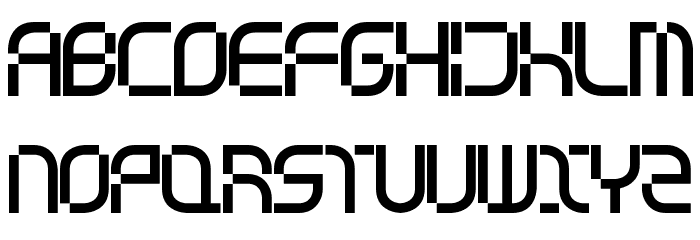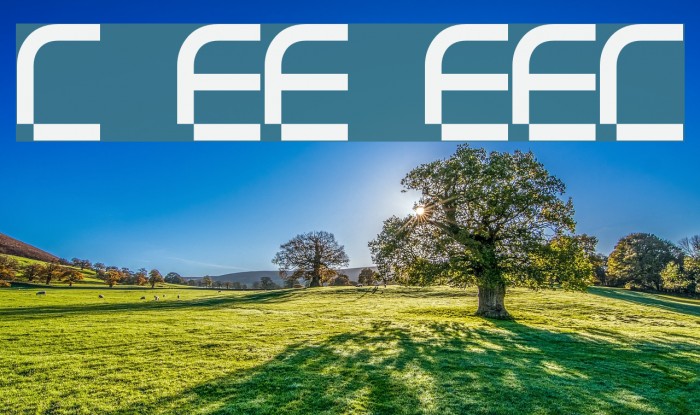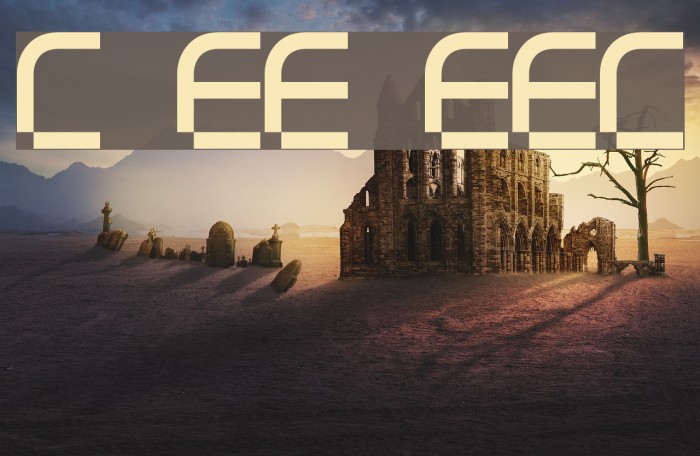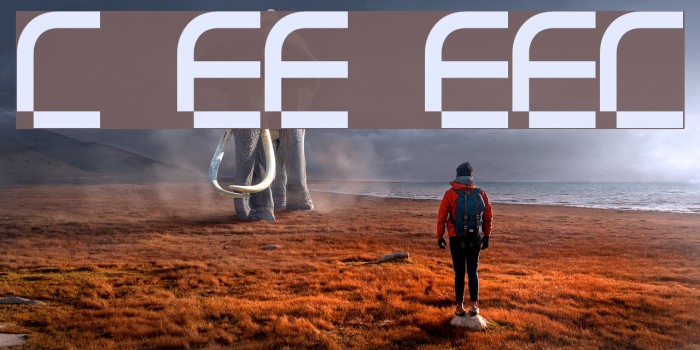
music television selector Font
This font features a futuristic and geometric design, characterized by its bold, block-like structure. The letters are composed of thick, uniform strokes with rounded edges, creating a sense of continuity and flow. The uppercase and lowercase letters maintain a consistent style, with the lowercase mirroring the uppercase in form but reduced in size. The numbers follow the same geometric pattern, ensuring a cohesive look across all characters. Special characters are uniquely stylized, incorporating the same bold and rounded elements. This font's design is highly modern, making it suitable for digital and tech-related projects.
A bold, geometric font with a futuristic and modern aesthetic.
- Proposed Projects: Ideal for digital media, tech branding, futuristic designs, and modern advertising.
- Use Case: Headlines, Logos, Digital media